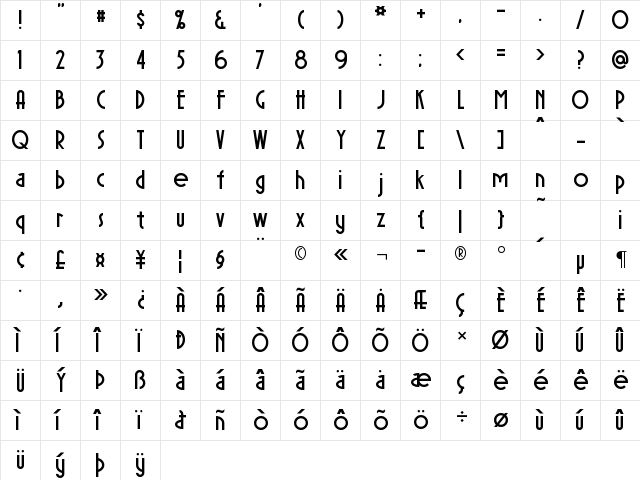
Sierra Madre Regular
| Foundry | Neale Davidson |
| Designer | Neale Davidson |
Design Context for Sierra Madre Typeface
Sierra Madre is a composed and adaptable typeface that performs quietly and consistently across a wide range of design contexts.